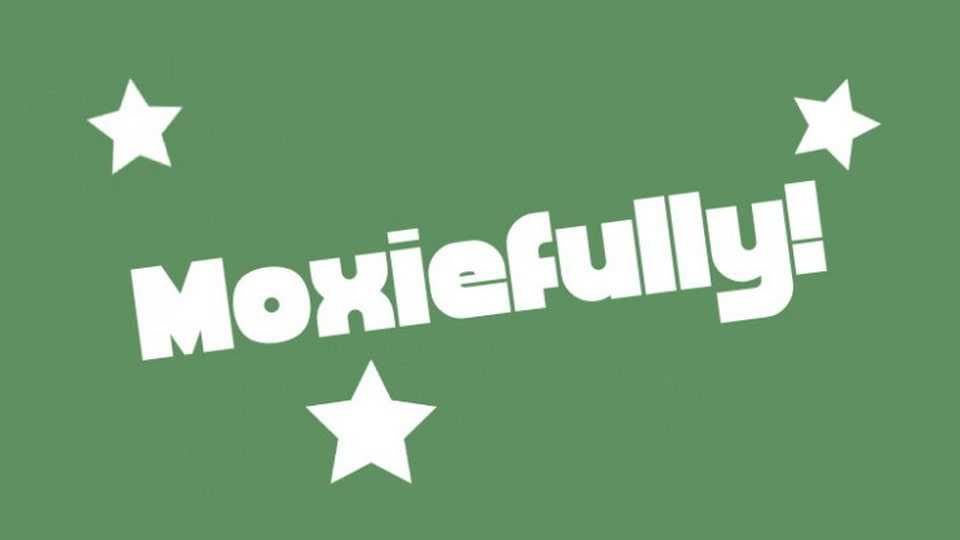
Download Moxiefully font, a bold and lively sans serif typeface designed to infuse your designs with a playful and energetic spirit. The font is crafted with bold strokes and whimsical details, creating a font that radiates a cheerful and animated vibe.